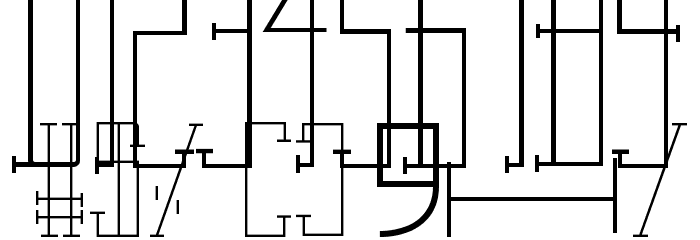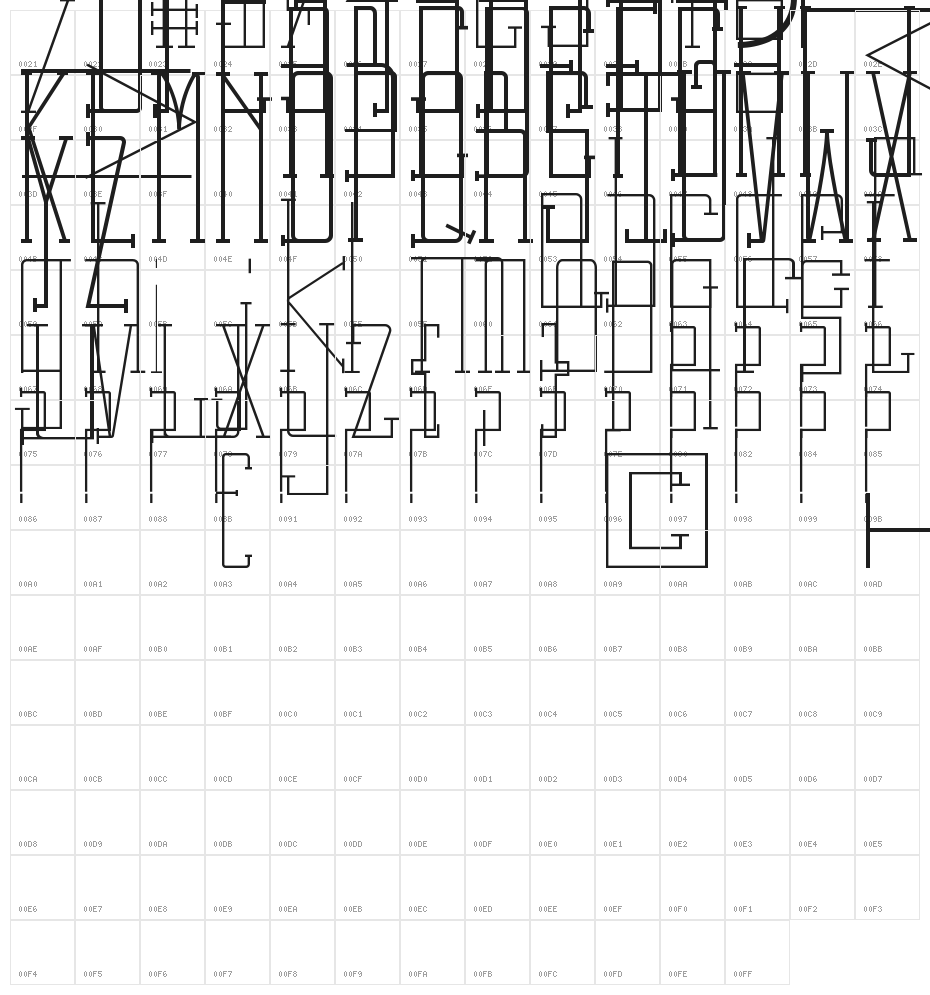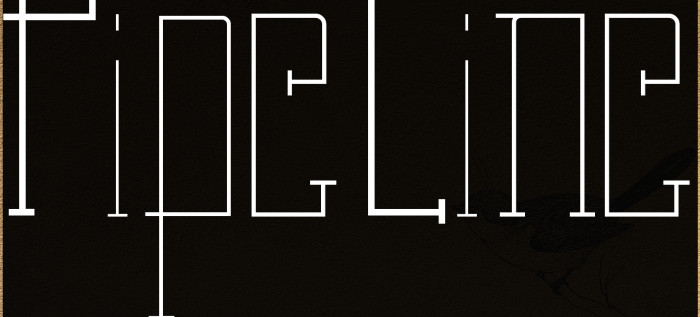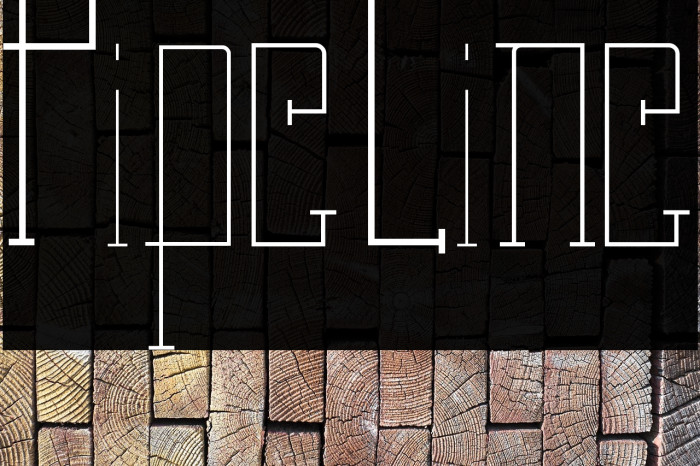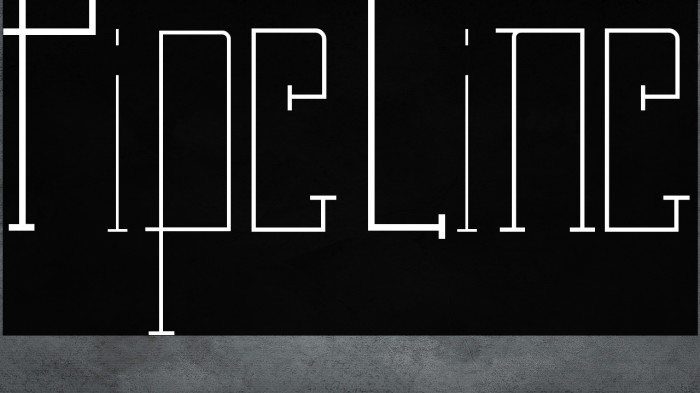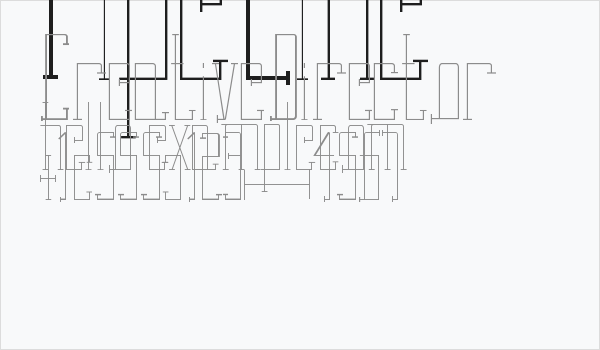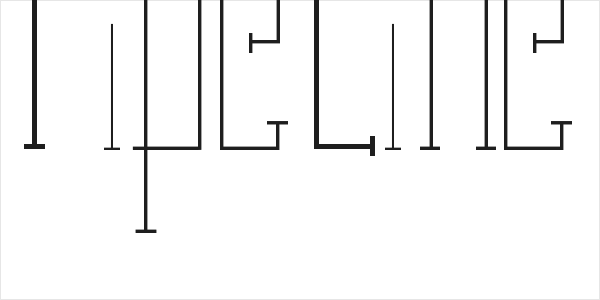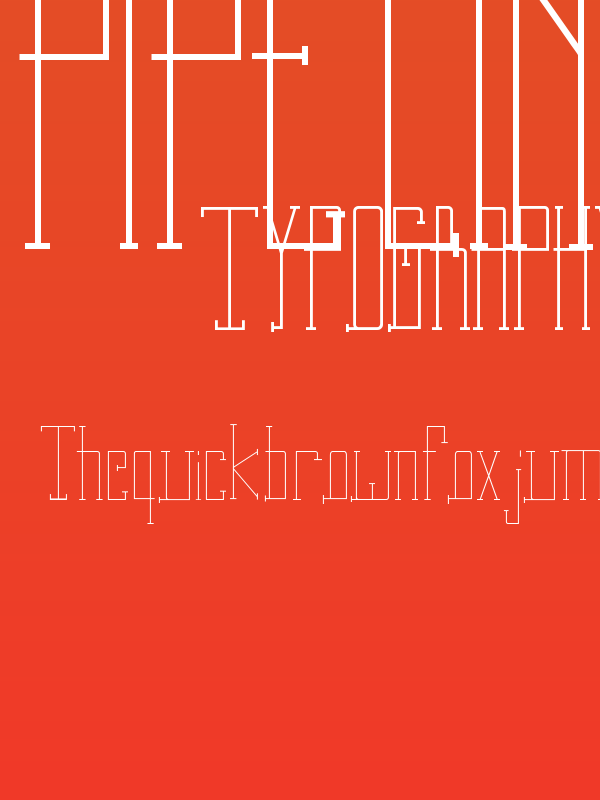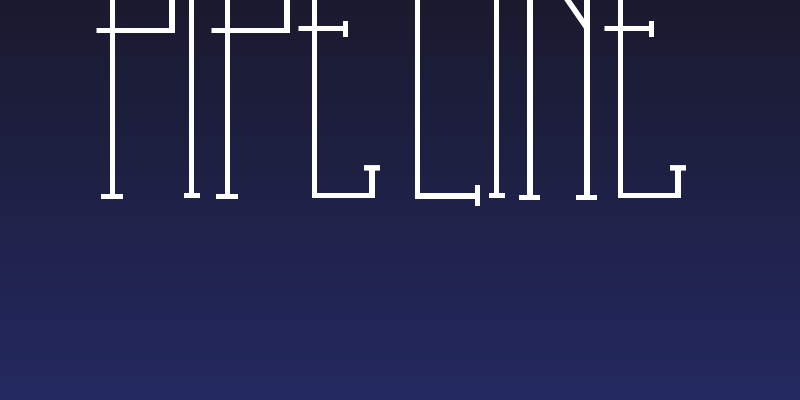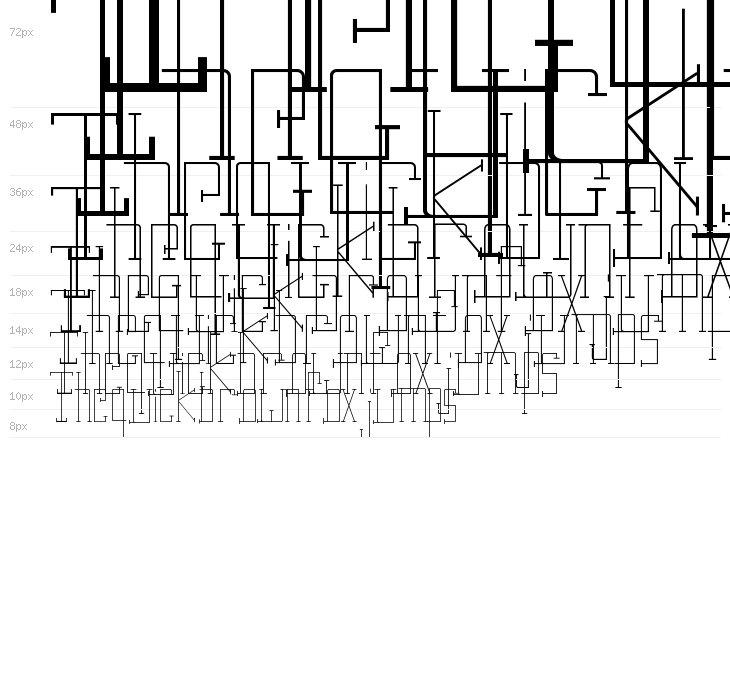
Pipe Line Font
Pipe Line Description
This font features a unique, geometric design with a linear, pipe-like structure. Each character is constructed with straight lines and sharp angles, giving it a modern and industrial feel. The uppercase and lowercase letters maintain a consistent height, contributing to a uniform appearance. The numerals and special characters follow the same design principles, ensuring cohesion across all elements. The font's distinct style makes it suitable for projects that require a futuristic or technical aesthetic. Its thin lines and minimalistic approach emphasize clarity and precision, making it an excellent choice for creative and innovative designs.
| Proposed Projects | Ideal for tech branding, futuristic posters, and modern art installations. |